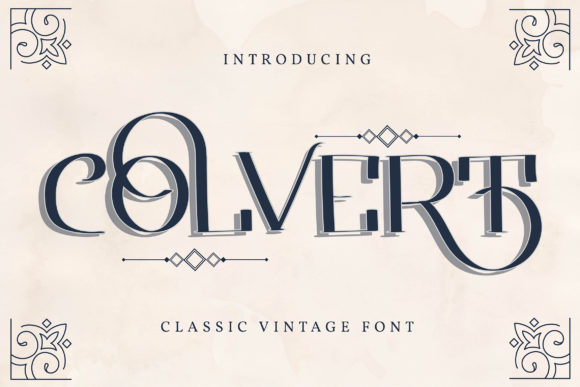
Introducing Colvert Font: A Timeless Classic for Elegant Designs
Are you a designer or crafter looking for a font that exudes elegance and sophistication? Look no further than Colvert Font, a classic and vintage display font that’s perfect for a wide range of design projects. With its bold and elegant look, Colvert is ideal for creating stunning logos, branding materials, invitations, stationery, wedding designs, social media posts, and more.
What Makes Colvert Font So Special?
Colvert Font is a beautifully crafted font that’s designed to make a statement. Its classic and vintage aesthetic is reminiscent of a bygone era, evoking feelings of luxury, refinement, and sophistication. The font’s bold and elegant look makes it perfect for designers who want to create eye-catching designs that stand out from the crowd.
One of the best things about Colvert Font is that it’s PUA (Private Use Area) encoded, which means you can access all of the glyphs and swashes with ease. This makes it easy to customize your designs and add unique touches that make your work stand out. With PUA encoding, you can easily access:
- Glyphs: Additional characters and symbols that can be used to add visual interest to your designs.
- Swashes: Decorative flourishes that can be used to add a touch of elegance to your designs.
Colvert Font is incredibly versatile, making it perfect for a wide range of design projects. Here are just a few ideas to get you started:
- Invitations and Stationery: Add a touch of elegance to your invitations, business cards, and letterhead with Colvert Font.
- Wedding Designs: Create beautiful wedding invitations, programs, and decorations with this stunning font.
- Social Media Posts: Make your social media posts stand out with eye-catching graphics and typography.
Why Choose Colvert Font?
With so many fonts to choose from, why should you choose Colvert Font? Here are just a few reasons why designers and crafters love this font:
- Unique and Elegant: Colvert Font has a unique and elegant look that’s sure to turn heads.
- Highly Versatile: This font can be used for a wide range of design projects, from logos and branding to invitations and social media posts.
- Easy to Use: With PUA encoding, you can easily access all of the glyphs and swashes, making it easy to customize your designs.
If you’re looking for a font that exudes elegance and sophistication, look no further than Colvert Font. With its classic and vintage aesthetic, bold and elegant look, and PUA encoding for easy access, this font is perfect for designers and crafters who want to create stunning designs. Whether you’re working on a logo, invitation, or social media post, Colvert Font is sure to make your design stand out from the crowd.
Get Creative with Colvert Font
- Beautiful logos and branding materials
- Elegant invitations and stationery
- Stunning wedding designs
- Eye-catching social media posts